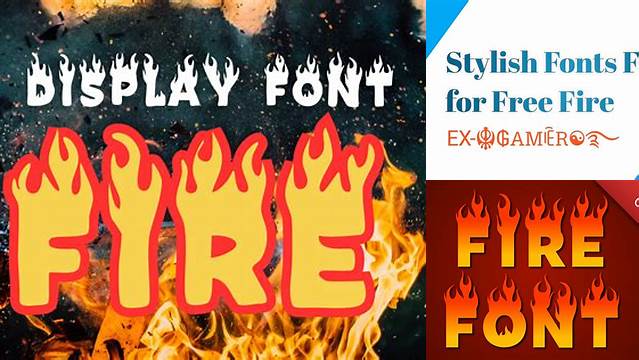
Aesthetic Free Fire Fonts Online: Cool & Stylish!
Hey guys! Want to make your Free Fire game look extra awesome? You've come to the right place! In this article, we're diving deep into the world of aesthetic Free Fire fonts online. We'll cover everything from finding the coolest fonts to using them to personalize your in-game name and profile. Get ready to level up your Free Fire style!
1. Understanding Aesthetic Fonts for Free Fire
Let's start with the basics. What exactly are aesthetic fonts? Well, they're basically fonts that are designed to look visually appealing and stylish. They can range from elegant and cursive to bold and futuristic. In the context of Free Fire, using aesthetic fonts online can really make your name and profile stand out. Imagine having a name that looks totally unique and eye-catching – that's the power of a good aesthetic font! There are tons of different styles to choose from, so you can really find something that matches your personal style and vibe. Plus, it's a fun way to add a little extra personality to your gaming experience. So, whether you're looking for something subtle and sophisticated or something bold and flashy, there's an aesthetic font out there for you. And the best part? Many of these fonts are available for free online! So, you can experiment and find the perfect one without spending a dime. Using aesthetic fonts in Free Fire is a simple yet effective way to enhance your overall gaming experience and show off your unique style to other players. It’s a small detail that can make a big difference in how you present yourself in the game. Why settle for a standard font when you can rock something truly special and memorable?
2. Why Use Unique Fonts in Free Fire?
Why bother with unique fonts, you ask? Well, guys, it's all about making a statement! In a game like Free Fire, where there are millions of players, having a unique name is super important. It's how you stand out from the crowd and make a lasting impression. Think of your in-game name as your personal brand – you want it to be memorable and reflective of your personality. Using unique fonts is a fantastic way to achieve this. A cool, aesthetic font can instantly elevate your name and make it look more professional and stylish. It shows that you've put thought and effort into your appearance, which can earn you respect from other players. Plus, it's just plain fun! Experimenting with different fonts and styles allows you to express your creativity and find a look that truly represents you. And let’s be honest, who doesn’t want to have the coolest name in the game? Unique fonts can also make it easier for your friends to recognize you in the game. In the heat of battle, a distinctive name can help your teammates quickly identify you and coordinate strategies. It's a small detail that can actually have a positive impact on your gameplay. Furthermore, using aesthetic Free Fire fonts online can add an element of mystery and intrigue to your persona. A well-chosen font can hint at your playstyle or personality, making other players curious about you. It’s like having a secret weapon in your arsenal of style. So, if you're looking to make a splash in Free Fire, don't underestimate the power of a unique font. It's a simple yet effective way to express yourself, stand out from the crowd, and make your mark on the game.
3. Finding Free Fire Font Generators
Okay, so you're sold on the idea of using a cool font, but where do you find them? The good news is there are tons of Free Fire font generators online! These tools are super easy to use – you just type in your name, and they'll generate a bunch of different font styles for you to choose from. It's like magic! Most of these generators are completely free, which is awesome. You can browse through dozens of options until you find the perfect font that screams “you.” A quick Google search for “Free Fire font generator” will bring up a whole list of websites. Some popular options include LingoJam, Cool Text, and Nickfinder. Each generator has its own unique selection of fonts and styles, so it's worth checking out a few different ones to see what they offer. When you're using a font generator, take your time and experiment with different options. Try out different font styles, sizes, and colors to see what looks best with your name. You might be surprised at the cool combinations you can create! Don't be afraid to get creative and think outside the box. Remember, the goal is to find a font that truly represents your personality and makes your name stand out. Many font generators also offer additional customization options, such as adding symbols or decorations to your name. These extra touches can really elevate your name and make it even more unique. So, if you're feeling adventurous, be sure to explore these features. And remember, since these generators are free, you can always come back and try out new fonts whenever you feel like changing things up. It’s a fun and easy way to keep your in-game name fresh and exciting.
4. Top Free Fire Font Styles to Consider
So, what kind of fonts should you be looking for? There's a whole universe of options out there, but let's break down some of the top Free Fire font styles to consider. First up, we have the classic cursive fonts. These fonts are elegant and sophisticated, perfect for players who want to project a sense of class and style. They're also great for creating a more personal and intimate vibe. Then there are the bold and blocky fonts. These fonts are all about making a statement. They're strong, powerful, and impossible to ignore. If you want your name to command attention, a bold font is the way to go. If you're into a more futuristic look, check out some sci-fi fonts. These fonts often have sharp angles and geometric shapes, giving them a cool and tech-inspired feel. They're perfect for players who want to project a modern and cutting-edge image. Another popular option is graffiti fonts. These fonts are edgy and rebellious, perfect for players who want to show off their wild side. They often have a hand-drawn feel, which adds to their unique charm. Don't forget about symbol fonts, either! These fonts use symbols and icons instead of letters, allowing you to create a truly unique and eye-catching name. You can use symbols to represent your playstyle, your favorite characters, or just your overall personality. And of course, there are tons of hybrid fonts that combine elements of different styles. These fonts can be a great way to create a name that's both unique and versatile. When choosing a font style, think about what kind of message you want to send. Do you want to be seen as elegant and sophisticated? Bold and powerful? Fun and playful? The right font can help you communicate your personality and make a lasting impression.
5. How to Use Font Generators Effectively
Using a font generator is easy, but there are a few tips and tricks to help you get the most out of these tools. First and foremost, experiment with different fonts. Don't just settle for the first one you see. Try out a variety of styles and sizes to see what looks best with your name. You might be surprised at the hidden gems you discover! Another important tip is to consider readability. While a fancy font might look cool, it's not very effective if other players can't read your name. Choose a font that's both stylish and legible. You want your name to stand out, but you also want it to be clear and easy to understand. Mix and match fonts and symbols. Many font generators allow you to combine different fonts and symbols to create a truly unique name. This is a great way to add some extra flair and personality to your name. Just be sure not to overdo it – a little goes a long way. Pay attention to the overall aesthetic. Think about the overall look and feel you're trying to achieve. Do you want your name to be bold and aggressive? Elegant and refined? Choose fonts and symbols that match your desired aesthetic. It's also a good idea to test your name in the game. Some fonts might look great on the font generator website, but they might not translate well to the Free Fire interface. Before you commit to a name, try it out in the game to make sure it looks good. Don't be afraid to get creative! Font generators are a fantastic tool for expressing your creativity and making your mark on the game. Have fun experimenting with different options and finding a name that truly represents you. And finally, remember that you can always change your name later. If you get tired of your current font, you can always switch things up. So, don't feel like you have to make a permanent decision. Just have fun and enjoy the process of finding the perfect font for your Free Fire name.
- Tap on the “Edit” icon. This icon looks like a pencil and is located next to your current name.
- Enter your new name. Here's where you'll paste the name you generated using your fancy new font. Make sure it looks exactly how you want it.
- Confirm the name change. You'll likely need a Name Change Card or diamonds to change your name. If you don't have a Name Change Card, you can purchase one in the Free Fire store. Diamonds are the in-game currency, and you can buy them with real money.
- Enjoy your new name! Once you've confirmed the change, your new name will be visible to everyone in the game. Get ready to show off your awesome style!
It's important to note that changing your name isn't free, unless you have a Name Change Card. These cards are often given out as rewards in events or can be purchased in the store. If you're planning to change your name frequently, it's worth investing in a few Name Change Cards to save diamonds. Also, double-check your new name before you confirm the change. Once you've changed your name, there's no going back (unless you change it again!). Make sure everything looks perfect and that you're happy with your new name. And finally, be mindful of the rules and guidelines set by Free Fire. Avoid using offensive or inappropriate names, as this could lead to penalties or even a ban from the game. Stick to names that are respectful and in line with the game's community standards.
7. Using Symbols and Special Characters
Want to take your name to the next level? Consider adding symbols and special characters! This is a great way to make your name even more unique and eye-catching. There are tons of cool symbols and characters out there, from stars and hearts to swords and skulls. You can use them to represent your playstyle, your favorite characters, or just your overall personality. Many font generators include a selection of symbols and special characters that you can easily add to your name. You can also find dedicated websites that offer a wide variety of symbols for you to copy and paste. When using symbols and special characters, it's important to strike a balance. Too many symbols can make your name look cluttered and difficult to read. Choose a few symbols that complement your font and add to the overall aesthetic. Think about the meaning of the symbols you're using. Do they represent your personality? Your playstyle? Your favorite things? Choose symbols that have personal significance to you. This will make your name even more meaningful and memorable. Consider the context in which you'll be using your name. Some symbols might be appropriate in certain situations but not in others. For example, a symbol that's considered edgy or rebellious might not be the best choice for a competitive tournament. Test your name with symbols in the game to make sure it looks good. Some symbols might not display correctly in Free Fire, so it's important to check before you commit to a name. And finally, be creative and have fun! Adding symbols and special characters is a great way to express your personality and make your name stand out. Don't be afraid to experiment with different combinations and find something that truly represents you. Just remember to keep it clean and respectful, and you'll be rocking a killer name in no time!
8. Common Mistakes to Avoid When Choosing Fonts
Choosing the perfect font can be a blast, but it's easy to make mistakes if you're not careful. Here are some common mistakes to avoid when choosing fonts for your Free Fire name: Choosing a font that's difficult to read. This is the biggest mistake you can make. If other players can't read your name, what's the point of having a fancy font? Always prioritize readability over style. Overusing symbols and special characters. A few well-chosen symbols can add flair to your name, but too many can make it look cluttered and confusing. Choosing a font that doesn't match your personality. Your font should be a reflection of who you are. If you're a serious and competitive player, a goofy font might not be the best choice. Copying someone else's name. Be original! Don't just copy a name you saw someone else using. Come up with something unique that's all your own. Ignoring the context. A font that looks great in one situation might not be appropriate in another. Think about the overall aesthetic you're trying to achieve and choose a font that fits the context. Not testing your name in the game. Some fonts might not display correctly in Free Fire, so it's important to test your name before you commit to it. Being afraid to change your mind. If you're not happy with your font, you can always change it later. Don't feel like you have to stick with a font forever. Choosing a font that's too common. If everyone is using the same font, your name won't stand out. Try to find something unique and less common. Forgetting about the overall aesthetic. Your font is just one piece of the puzzle. Think about the overall look and feel you're trying to achieve and choose a font that fits the overall aesthetic. By avoiding these common mistakes, you can choose a font that's both stylish and effective. So, take your time, be creative, and have fun finding the perfect font for your Free Fire name!
9. The Psychology of Font Choices
Did you know that font choices can actually influence how people perceive you? It's true! There's a whole field of study dedicated to the psychology of fonts, and it's fascinating stuff. Different fonts evoke different emotions and associations. For example, serif fonts (like Times New Roman) tend to convey a sense of tradition, authority, and sophistication. They're often used in formal settings and can project an image of trustworthiness and stability. Sans-serif fonts (like Arial or Helvetica) are more modern and minimalist. They tend to convey a sense of clarity, efficiency, and neutrality. They're often used in tech companies and can project an image of innovation and progress. Cursive fonts are elegant and romantic. They can convey a sense of creativity, artistry, and femininity. They're often used in wedding invitations and can project an image of grace and beauty. Display fonts are bold and attention-grabbing. They can convey a sense of excitement, energy, and playfulness. They're often used in advertising and can project an image of fun and adventure. So, when you're choosing a font for your Free Fire name, think about the message you want to send. Do you want to be seen as serious and competitive? Fun and playful? Elegant and sophisticated? Your font choice can help you project the image you want. Consider your target audience as well. What kind of players are you trying to attract? If you're trying to attract serious players, a more professional font might be a good choice. If you're trying to attract casual players, a more playful font might be a better fit. It’s a subtle thing, but paying attention to the psychology of font choices can give you an edge in the game. By choosing a font that aligns with your personality and your goals, you can create a name that's both stylish and effective.
10. Matching Your Font to Your In-Game Persona
Okay, so you understand the psychology of fonts, but how do you actually apply that to your Free Fire name? It's all about matching your font to your in-game persona. Think about the character you portray in the game. Are you a fierce warrior? A stealthy assassin? A charismatic leader? Your font should reflect that persona. If you're a fierce warrior, a bold and aggressive font might be a good choice. Something that conveys strength, power, and dominance. Think about fonts with sharp angles and strong lines. If you're a stealthy assassin, a sleek and mysterious font might be a better fit. Something that conveys secrecy, agility, and precision. Think about fonts that are elegant and understated. If you're a charismatic leader, a confident and stylish font might be the way to go. Something that conveys authority, intelligence, and charm. Think about fonts that are both professional and approachable. Consider your playstyle as well. Are you an aggressive player who likes to rush into battle? Or are you a more strategic player who prefers to plan your moves carefully? Your font can reflect your playstyle. If you're an aggressive player, a bold and energetic font might be a good choice. If you're a strategic player, a more refined and thoughtful font might be a better fit. Don't be afraid to experiment with different fonts until you find one that feels right. Try out different combinations and see what resonates with you. Remember, your font is just one piece of the puzzle. It's important to consider the overall aesthetic of your name, including any symbols or special characters you use. The goal is to create a name that's both stylish and reflective of your personality and playstyle. When you successfully match your font to your in-game persona, you create a stronger and more memorable presence in the game. Your name becomes an extension of your character, and it helps you stand out from the crowd.
11. Font Ideas for Different Free Fire Characters
Looking for some specific font ideas for different Free Fire characters? Let's dive into some examples! If you main Alok, a popular character known for his energetic and supportive abilities, you might want to choose a font that's vibrant and friendly. A bold sans-serif font with rounded edges could work well, conveying a sense of energy and approachability. Think about fonts that are easy to read and have a modern feel. For Kelly, the speedy sprinter, a sleek and dynamic font would be a great fit. Something that conveys speed, agility, and determination. A condensed sans-serif font with italicized characters could capture Kelly's swift movements and competitive spirit. If you prefer playing as Hayato, the legendary samurai, a font with a traditional Japanese influence could add authenticity to your name. Look for fonts with brushstroke-like details or calligraphic elements. A font that evokes strength, honor, and discipline would be perfect for Hayato. For Moco, the master hacker, a futuristic and tech-inspired font would be ideal. Choose a font with sharp angles, geometric shapes, and a modern aesthetic. Something that conveys Moco's intelligence, coding skills, and technological prowess. If you enjoy playing as Wukong, the mischievous monkey king, a playful and whimsical font could capture his personality. Look for fonts with unique shapes, quirky details, and a fun-loving vibe. A font that evokes laughter, creativity, and a touch of chaos would be perfect for Wukong. These are just a few examples, of course. The best font for your name will ultimately depend on your personal preferences and your interpretation of the character. But hopefully, these suggestions give you a good starting point for brainstorming. Remember, your font is a way to express your personality and connect with your favorite characters on a deeper level. So, have fun exploring different options and finding the perfect font for your Free Fire name!
12. Creating a Free Fire Clan Name with Aesthetic Fonts
It's not just individual names that can benefit from aesthetic fonts! Creating a Free Fire clan name with aesthetic fonts can elevate your clan's identity and make it stand out. A well-chosen font can communicate your clan's values, style, and overall vibe. Think about what kind of image you want your clan to project. Are you a competitive clan focused on winning tournaments? Or a more casual clan that prioritizes fun and friendship? Your font should reflect your clan's personality. If you're a competitive clan, a bold and authoritative font might be a good choice. Something that conveys strength, dominance, and a no-nonsense attitude. Look for fonts with strong lines, sharp angles, and a professional feel. If you're a casual clan, a more relaxed and friendly font might be a better fit. Something that conveys warmth, humor, and a welcoming atmosphere. Consider fonts with rounded edges, playful details, and a lighthearted feel. Consider the theme of your clan name as well. If your clan name has a specific theme (e.g., mythical creatures, historical figures, etc.), choose a font that aligns with that theme. This can add an extra layer of meaning and visual appeal to your name. For example, if your clan name is